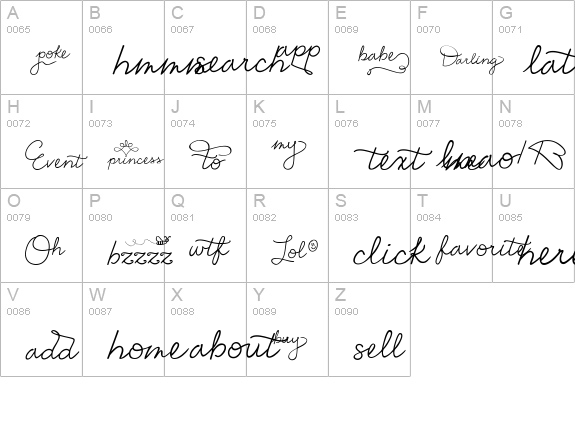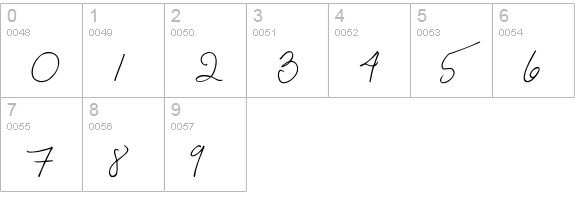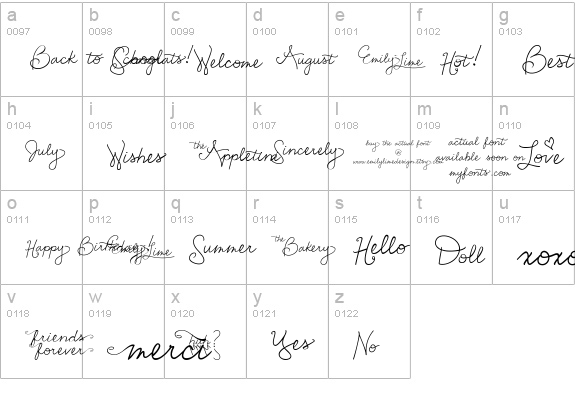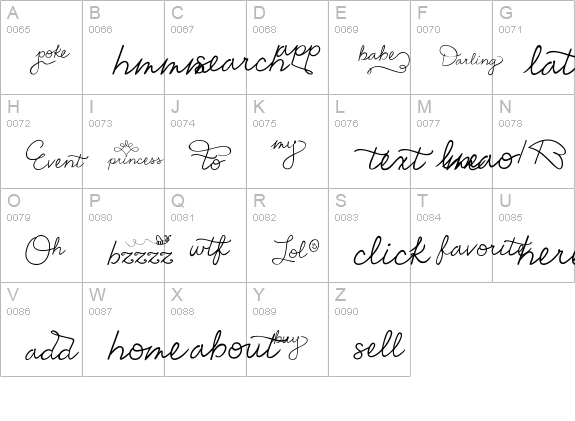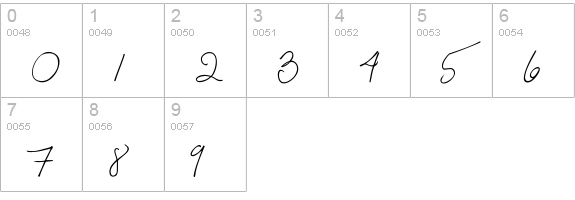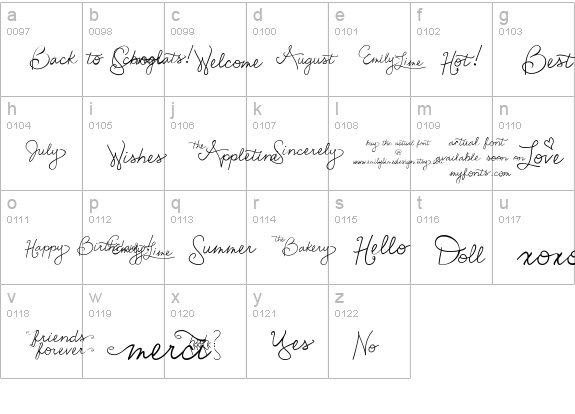
Introducing Emily Lime Words, a charming and versatile font that will add a touch of elegance to your projects. With its delicate curves and graceful lines, this typeface is perfect for creating beautiful wedding invitations, sophisticated logos, and timeless branding. Emily Lime Words is not only visually pleasing, but it also offers incredible functionality. With over 300 glyphs, including stylistic alternates and ligatures, you have endless design possibilities at your fingertips. Whether you're looking for a refined script or a playful display font, Emily Lime Words has got you covered. What sets Emily Lime Words apart is its unique combination of sophistication and approachability. It strikes the perfect balance between formal and friendly, making it suitable for a wide range of applications. From upscale events to whimsical illustrations, this font effortlessly adapts to any design concept. And the best part? Emily Lime Words is free! Yes, you heard that right. You can freely download this stunning font at FontsMarket.com. Now, you can add a touch of elegance to your projects without breaking the bank. It's a fantastic opportunity to elevate your designs and make a lasting impression. So, whether you're a professional graphic designer or a DIY enthusiast, Emily Lime Words is a must-have addition to your font collection. Download it for free today at FontsMarket.com and let your creativity soar. With its timeless beauty and versatility, this font is sure to become a favorite in your design arsenal. Don't miss out on this amazing opportunity to enhance your projects with the charm and grace of Emily Lime Words.